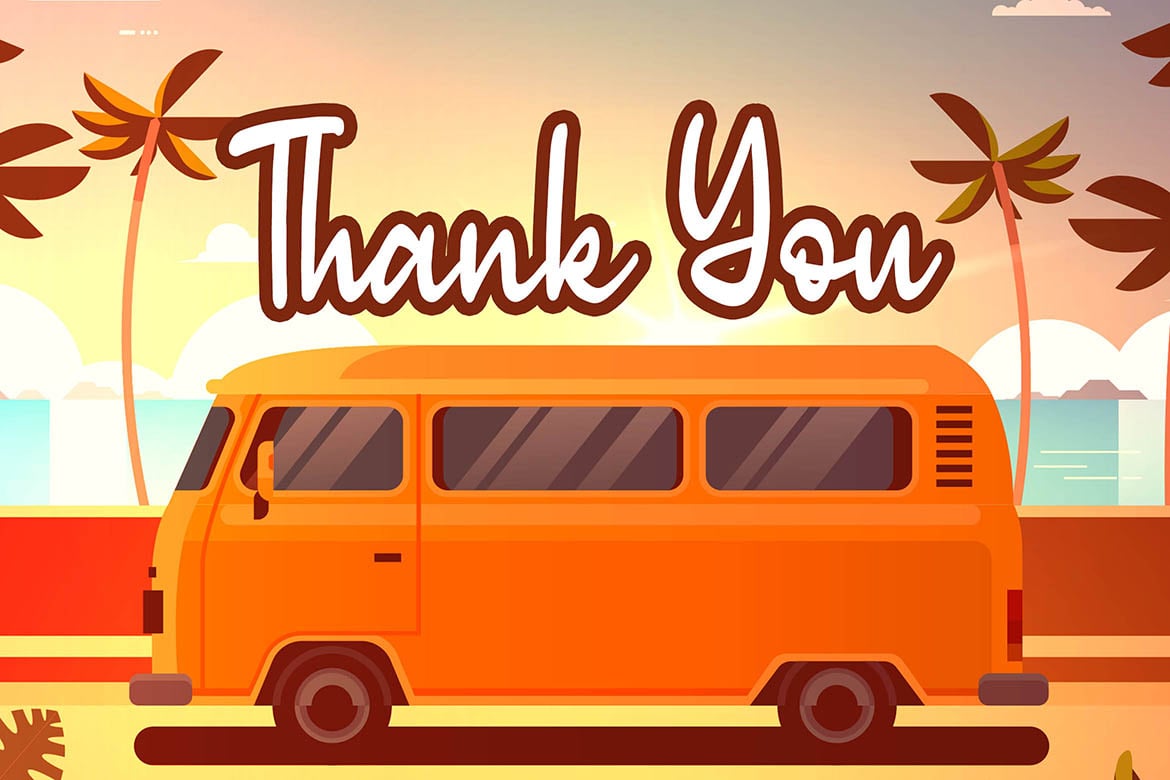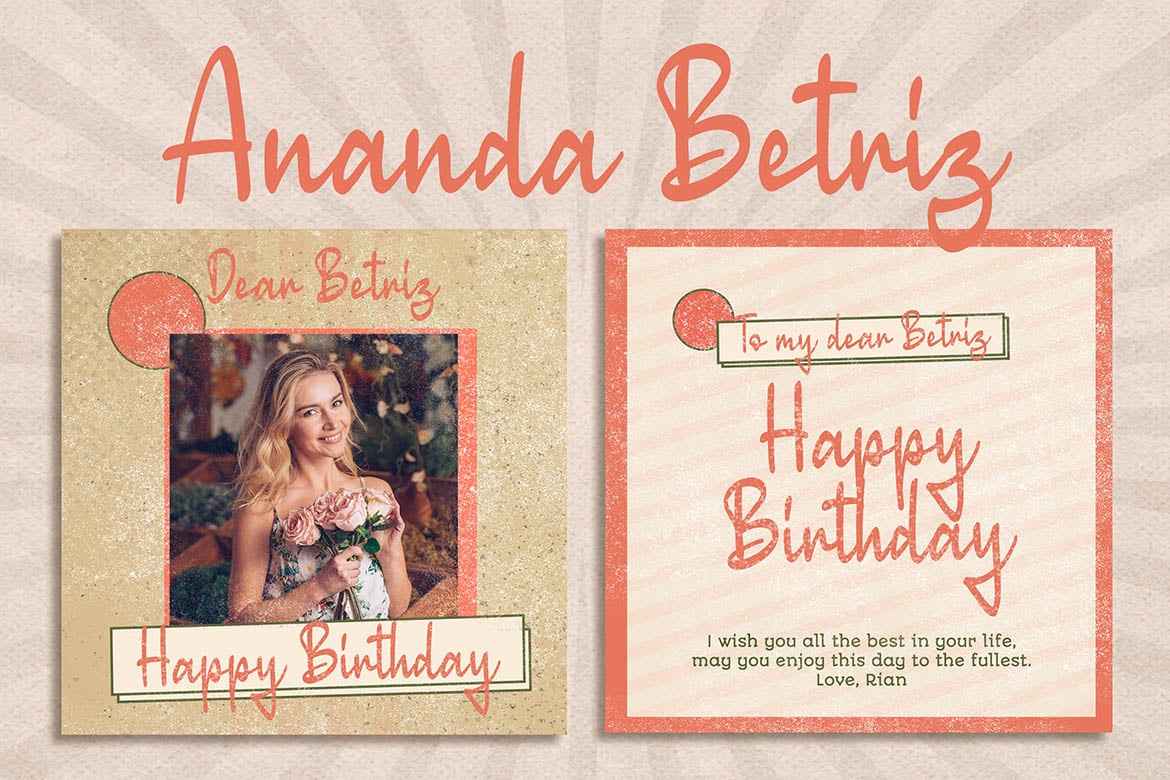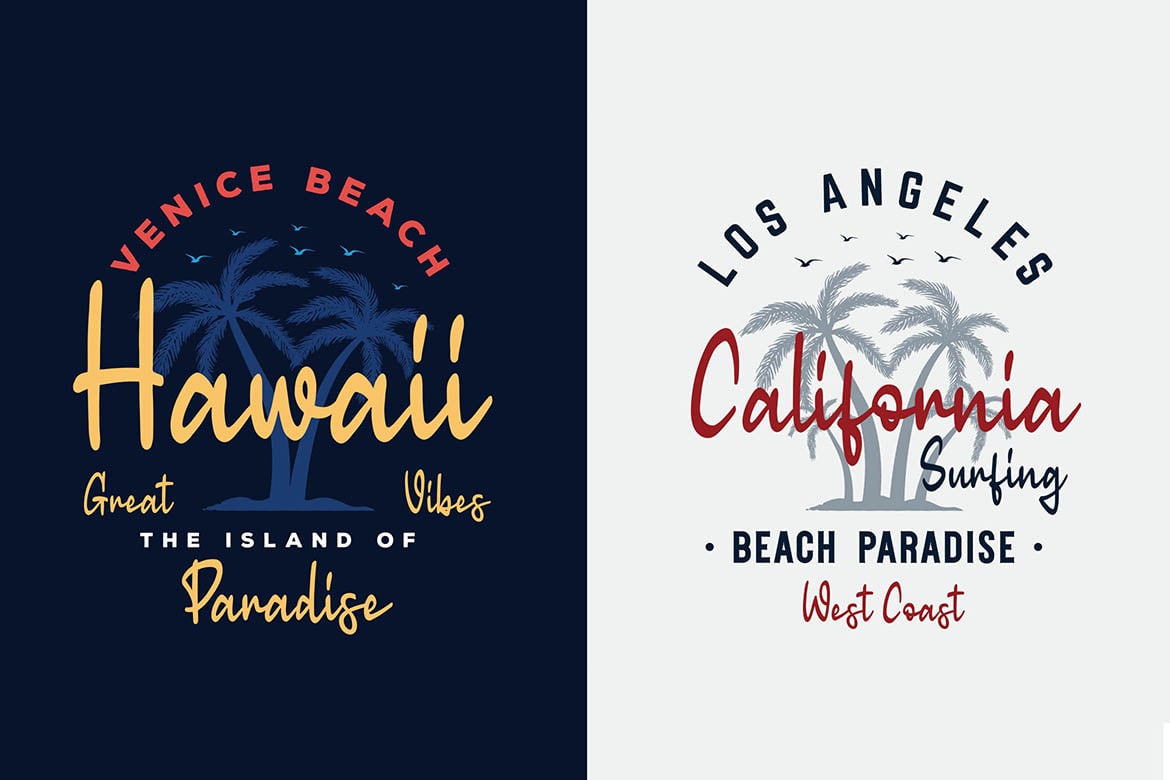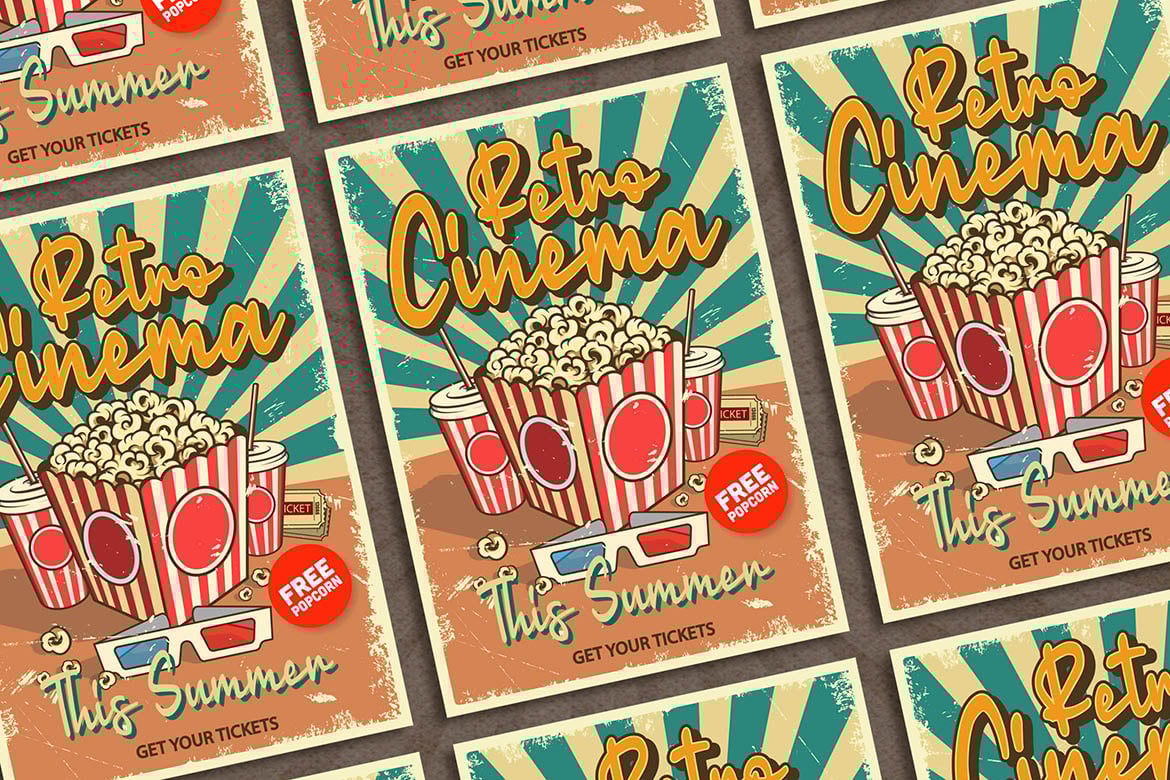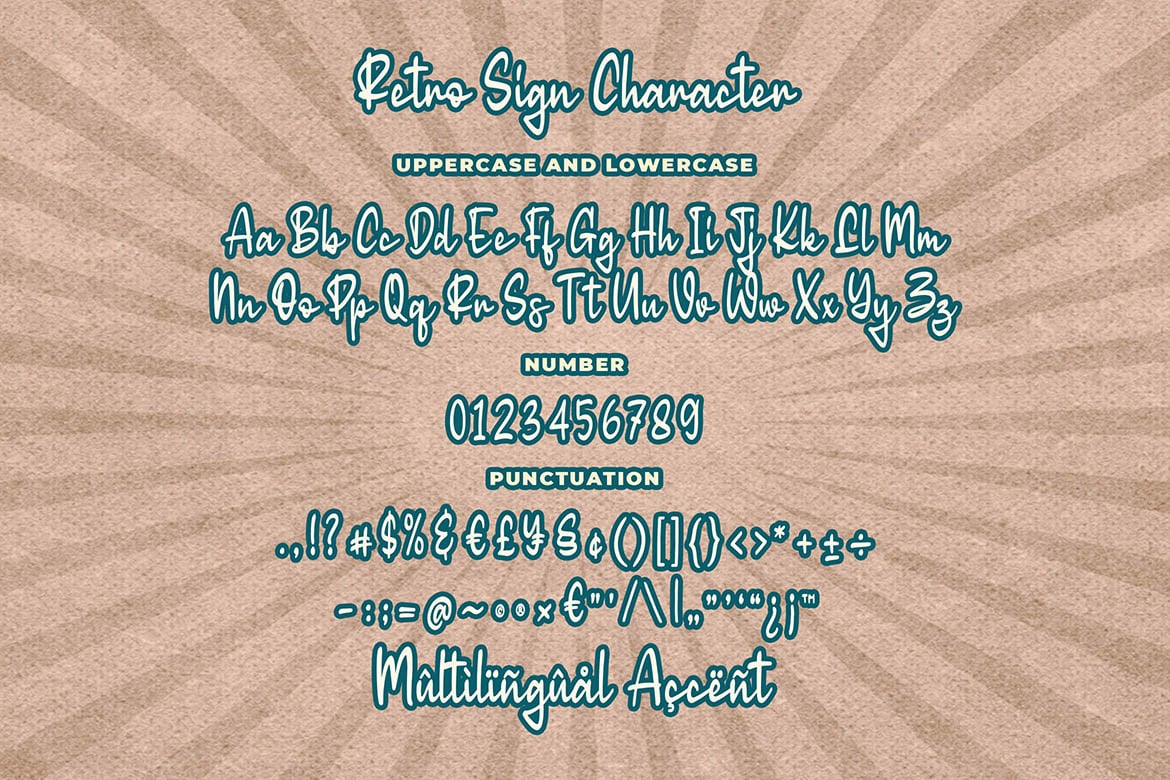
Retro Sign – Retro Signature Font
Introducing of our new product the name is Retro Sign Retro Signature Font. Retro Sign inspired by modern retro signature style this font is a fun theme very good for display, wedding, valentine theme, logotype and etc
MULTILINGUAL ACCENT :
ØÆøæ¢ÐŒœÁĂÂÀÄĄÅÃǼĆČÇĈĊĎÉĔĚÊËĖÈĘĞĜĢĠĤÍĬÎÏİÌĮĨĴĶĹĽĻĿŃŇŅÑÓŎÔÖÒŐǾÕŔŘŖŚŠŞŜȘŤŢÚŬÛÜÙŰŲŮŨẂŴẄẀÝŶŸỲŹŽŻáăâäàąåãǽćčçĉċďéĕěêëėèęğĝģġĥíîïìįĩĵķĺľļŀńʼnňņñóŏôöòőǿõŕřŗśšşŝșťţŭûüűùųůũẃŵẅẁýŷÿỳźžż